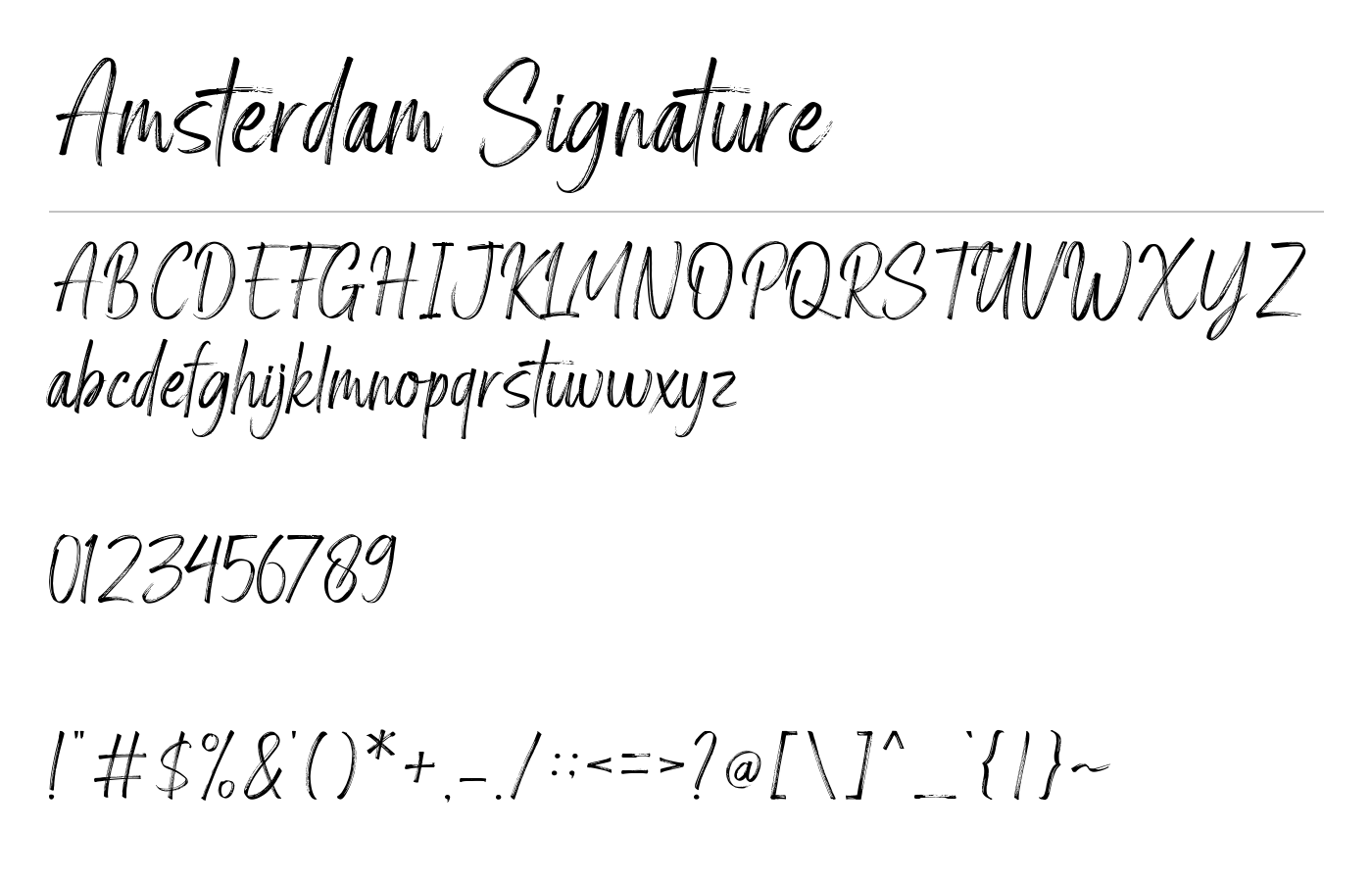
Amsterdam Signature is a slender, handwritten script font with a natural, textured brush style that gives it a personal and artistic feel. Its tall, narrow letterforms and casual imperfections make it ideal for creative projects, branding, and elegant yet approachable designs such as logos, invitations, and social media graphics. This font adds a touch of authenticity and modern charm, perfect for expressing warmth and individuality.
Amsterdam Signature Font
About Amsterdam Signature Font